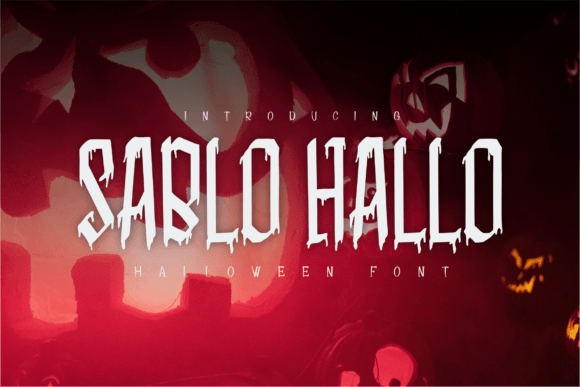
Behold, the Sablo Hallo Font, a mesmerizing creation from the mind of emprit.graphic, a Halloween-inspired masterpiece, conjuring the mystical essence of the spooky season. Its dripping letters and characters are like a cascade of blood, beckoning you into a realm of mystery and wonder.
Immerse yourself in the magic of Sablo Hallo, a display typeface that dances and swirls, painting words with an eerie charm. Its dripping letters, evocative of freshly carved pumpkins, evoke the eerie beauty of a haunted house. With every word you type, Sablo Hallo casts a spell, drawing your audience into a captivating world of intrigue and otherworldly delight.
Step into the world of hauntingly beautiful design with Sablo Hallo, the perfect font for conjuring an atmosphere of mystery and suspense. Its every letter exudes the essence of the uncanny, making it ideal for posters, flyers, and other promotional materials that demand attention. Festivals, costume parties, and Halloween events come alive with the Sablo Hallo font, captivating your audience with its mesmerizing aura.
Open the doors to your imagination and explore the limitless possibilities of Sablo Hallo. Unleash your creativity and let your words drip with intrigue with this display typeface. Whether you're a seasoned designer or just starting your creative journey, Sablo Hallo empowers you to craft designs that resonate with your audience on a profound level.
With Sablo Hallo, you're not just using a font; you're embarking on a journey into the realm of the supernatural. Unleash your dark side and embrace the spine-tingling beauty of Sablo Hallo. Let its dripping letters weave their spell, casting a captivating aura over your designs that will leave your audience spellbound.